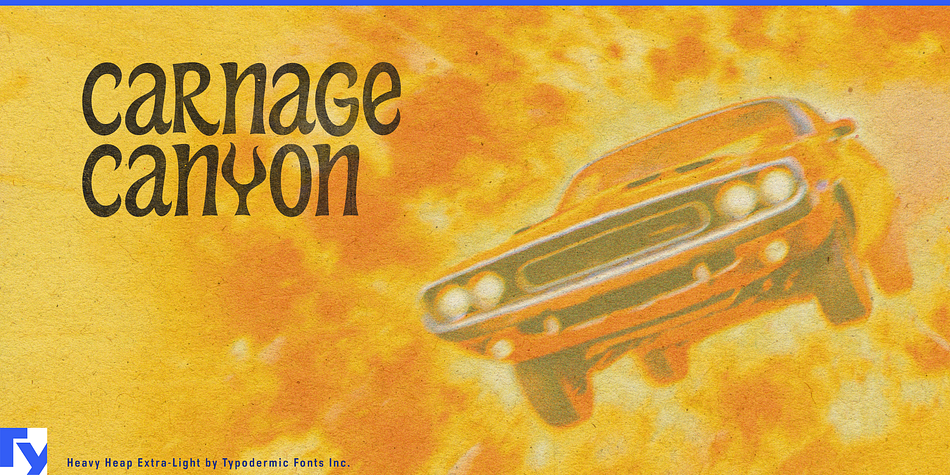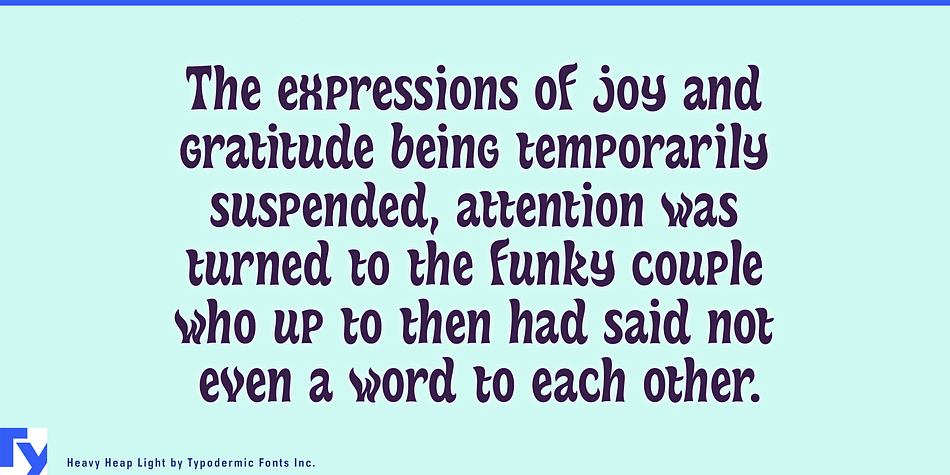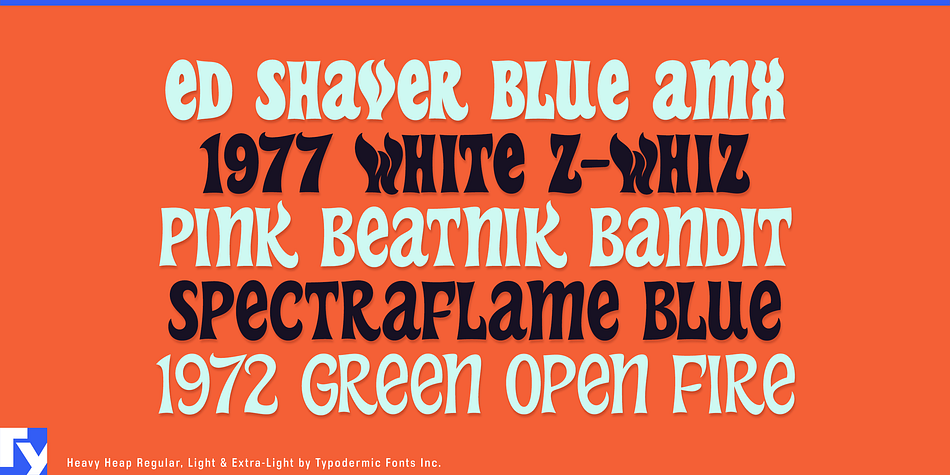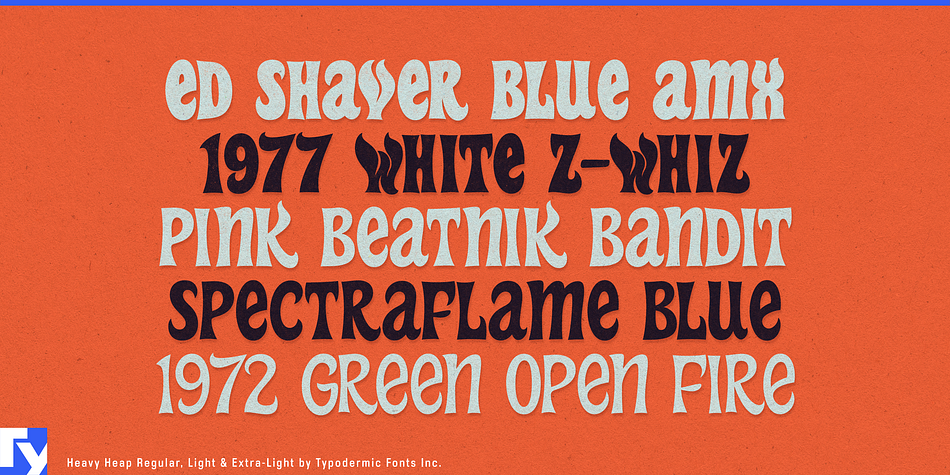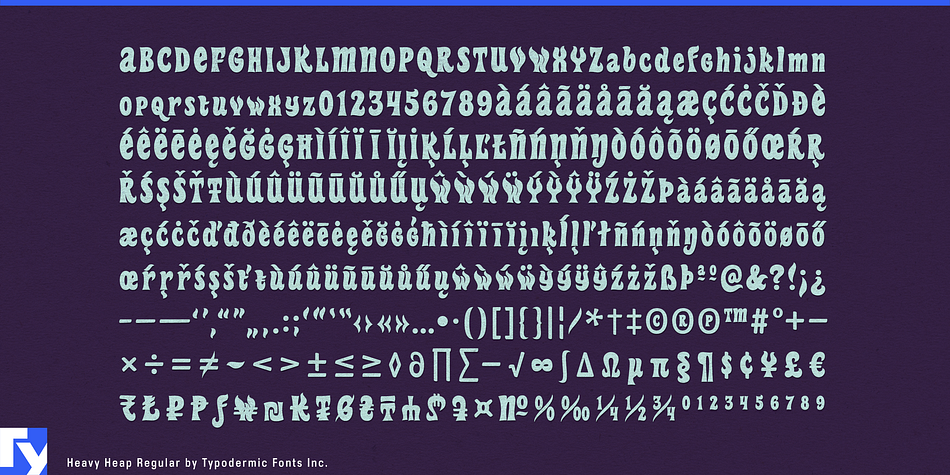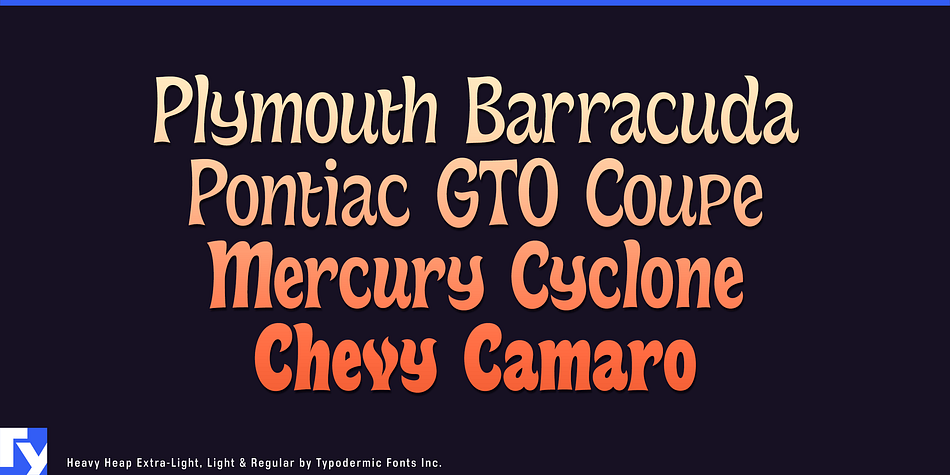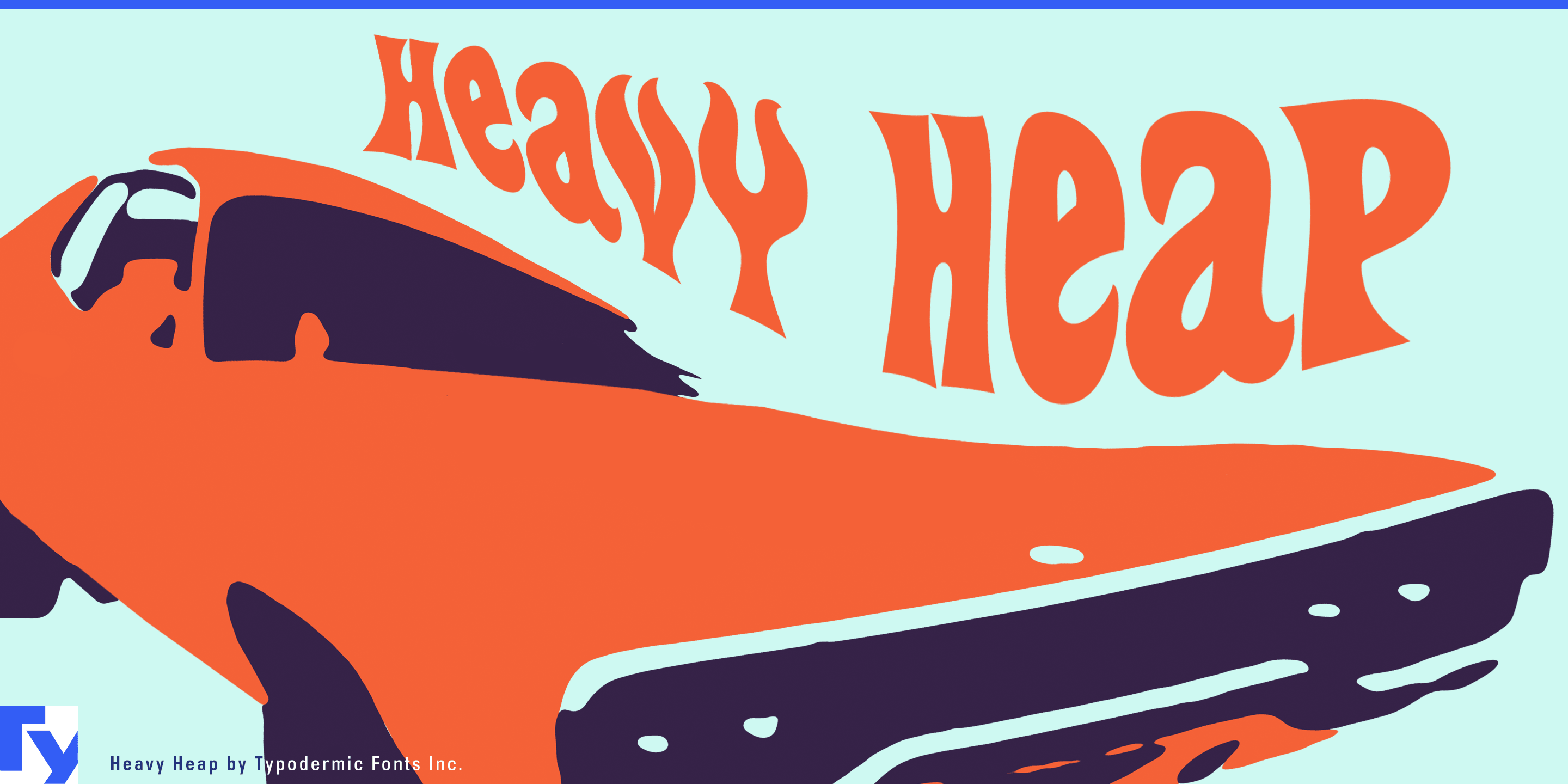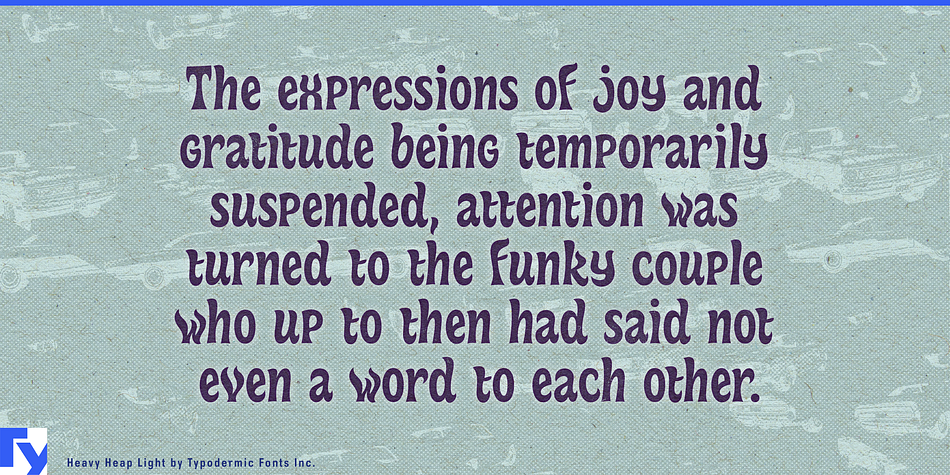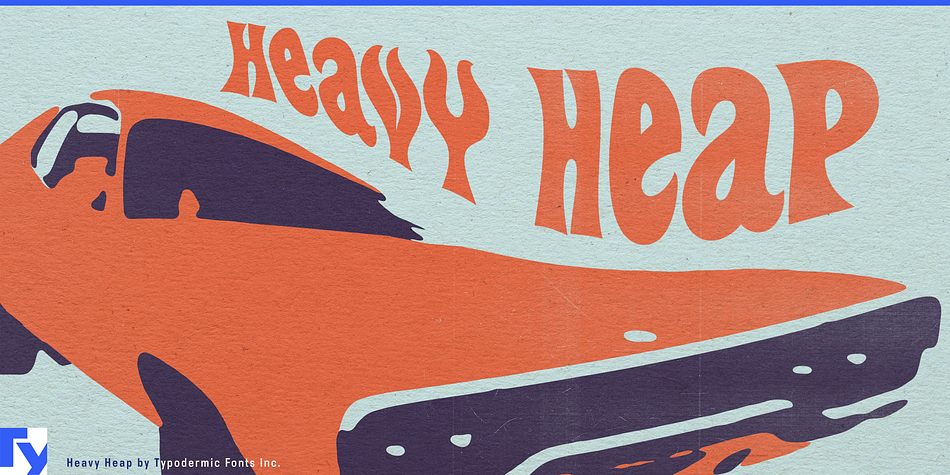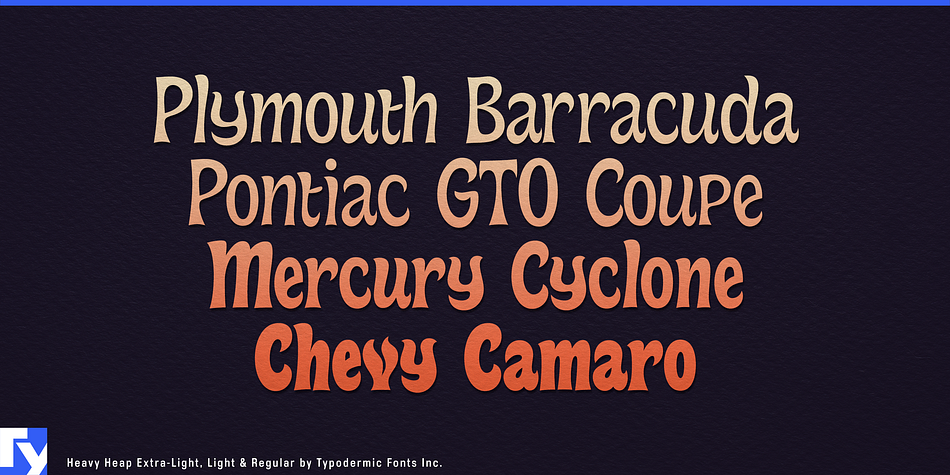
Heavy Heap is a retro font published by Typodermic Fonts Inc.
Heavy Heap is a flaming, 1960’s style kustom headliner featuring lowered suspension, a chopped roof line, plenty of chrome and a full flame job.